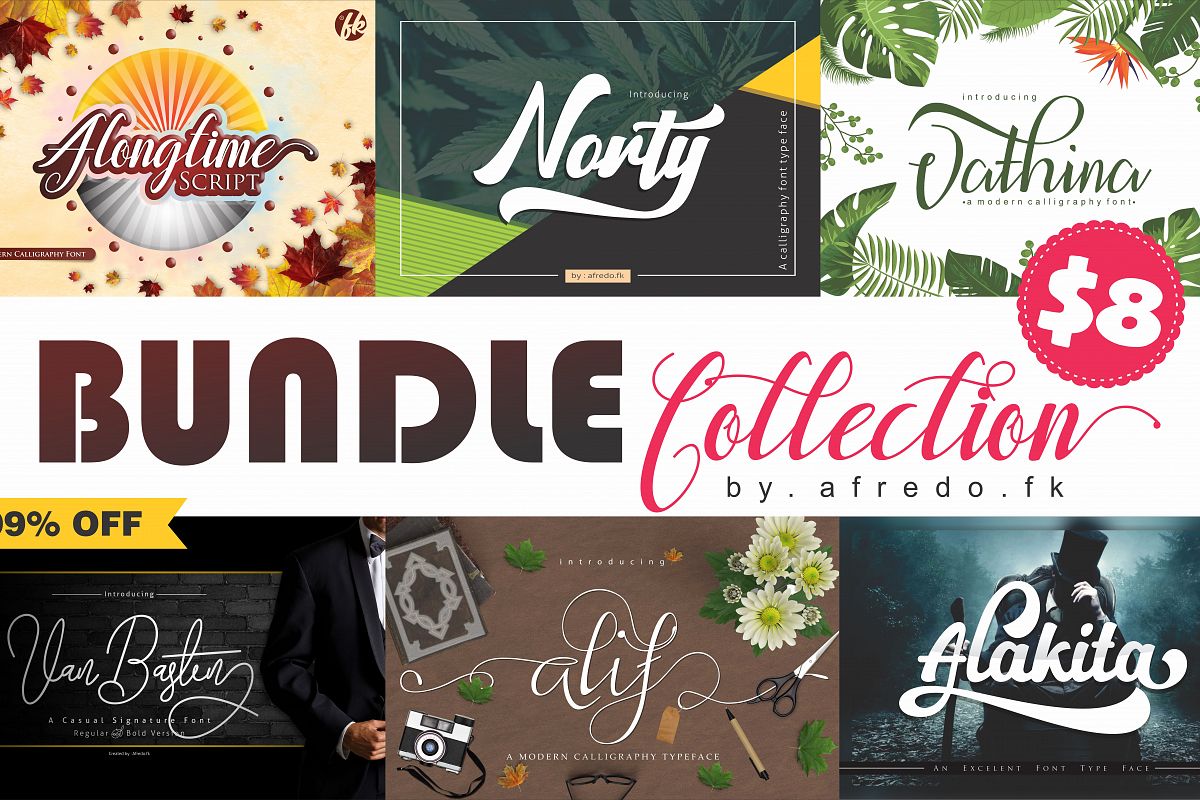
Bundle Collection 6 in 1
This fonts are perfect for your blog or postcard for wedding. Also with their help, you can create a logo or beautiful frame for your home. Or just use these various fonts for logo, greeting cards, branding materials, business cards, quotes, posters and more!
Font Collection:
• Alakita
• Norty
• Van Basten
• Alongtime
• Alif
• Vathina